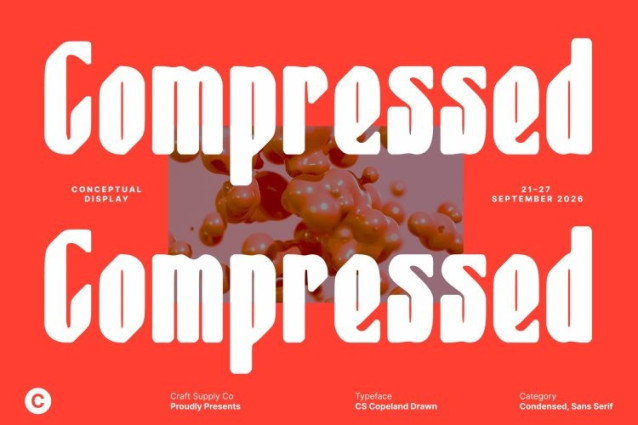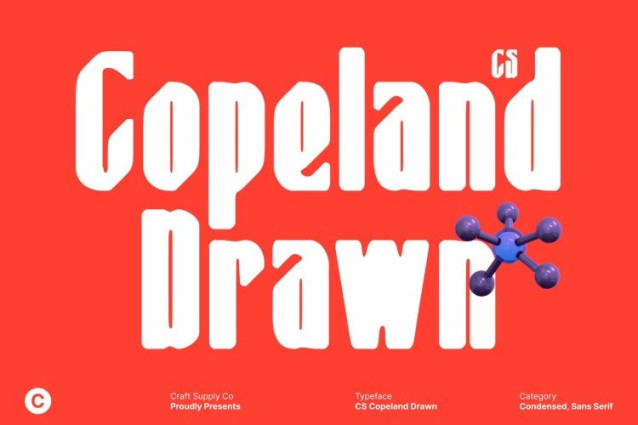
CS Copeland Drawn Font
CS Copeland Drawn Font This is a condensed sans serif font built with a compact structure and strong industrial character. Its narrow proportions allow it to deliver powerful visual impact in tight spaces, making it highly effective for bold headlines and space-efficient layouts.
Drawn Effect for Artistic Texture
The drawn effect adds an artistic, textured layer that enhances the font’s industrial feel. Subtle imperfections and organic stroke variations introduce a handcrafted quality, softening the rigid geometry while adding depth and visual interest. This texture gives a more expressive and human touch without sacrificing its clean, modern foundation.
Balanced Readability with Bold Character
This font strikes a strong balance between readability and boldness. Its solid strokes and open counters support clarity, while the condensed form amplifies strength and intensity. This balance makes the font versatile for both short statements and prominent typographic elements that need to stand out without overwhelming the layout.
Ideal for Headlines, Posters, and Branding
Designed for impactful use, performs exceptionally well in headlines, posters, logos, and branding systems. Its compact form, modern industrial style, and artistic texture help create strong visual identities across print and digital media. Whether used for editorial headlines or brand marks, delivers a bold, textured, and contemporary typographic voice.